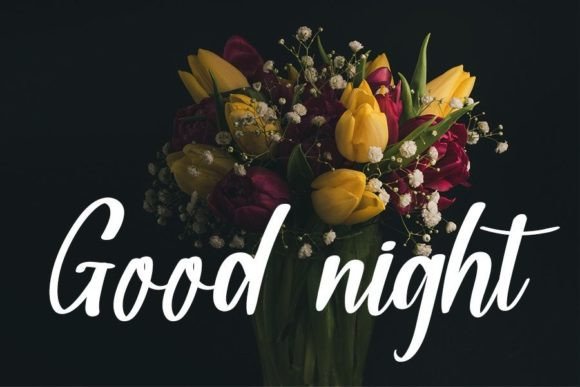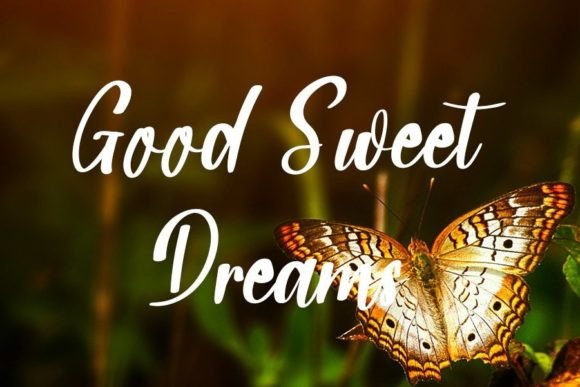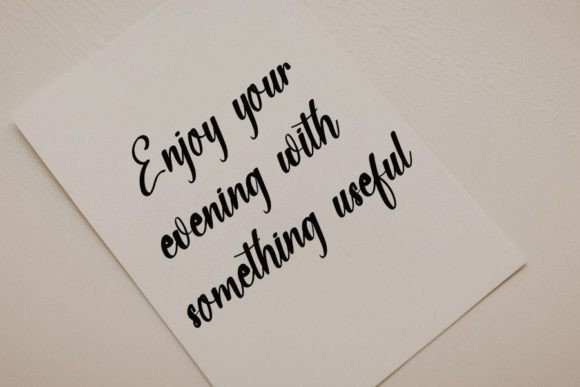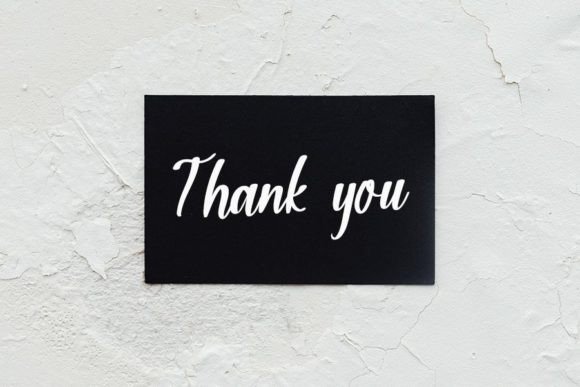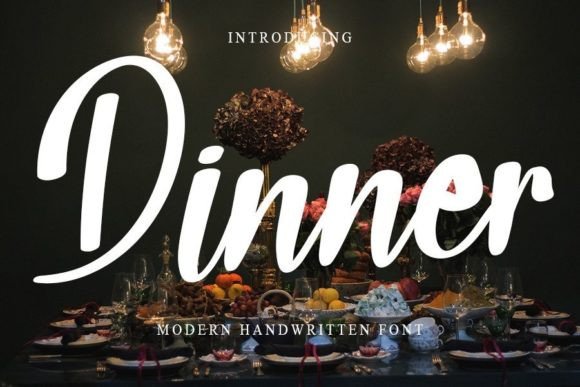
Dinner Font: Elevate Your Designs with Elegance and Timeless Style
Are you on the hunt for a font that exudes elegance, sophistication, and a touch of whimsy? Look no further than the Dinner Font, a stunning handwritten font that is sure to capture your heart. With its incredibly distinct and timeless style, this beautiful font is perfect for designers, crafters, and anyone looking to add a touch of luxury to their projects.
What Makes Dinner Font So Special?
Dinner Font is a neat and beautiful handwritten font that boasts an elegant touch, making it perfect for a wide range of applications. Whether you’re working on a branding project, creating wedding invitations, or designing social media graphics, this font is sure to impress. Its unique and distinctive style sets it apart from other fonts, making it a standout choice for anyone looking to create spectacular designs.
Key Features of Dinner Font
- Elegant and Sophisticated: Dinner Font features an elegant and sophisticated design that is perfect for high-end projects.
- Handwritten Style: The font’s handwritten style gives it a personal and unique touch that is sure to capture attention.
- Timeless Appeal: The font’s classic design ensures that it will remain timeless and relevant for years to come.
- Versatile: Dinner Font is perfect for a wide range of applications, from branding and advertising to wedding invitations and social media graphics.
How to Use Dinner Font in Your Designs
Using Dinner Font in your designs is easy and straightforward. Here are a few tips to get you started:
- Pair it with Other Fonts: Pair Dinner Font with other fonts to create a unique and visually appealing design.
- Use it for Headings: Use Dinner Font for headings and titles to add a touch of elegance and sophistication to your design.
- Try it on Different Backgrounds: Try Dinner Font on different backgrounds to see how it looks and find the perfect combination.
Why Designers and Crafters Love Dinner Font
Dinner Font has quickly become a favorite among designers and crafters, and for good reason. Here are a few reasons why:
- Unique Style: The font’s unique and distinctive style sets it apart from other fonts and makes it a standout choice.
- Ease of Use: Dinner Font is easy to use and can be easily integrated into a wide range of design applications.
- High-Quality Design: The font is designed to high standards, ensuring that it looks great in any design.
- Support for Multiple Languages: Dinner Font supports multiple languages, making it a great choice for designers and crafters who work with international clients.
In conclusion, Dinner Font is a stunning handwritten font that is perfect for designers, crafters, and anyone looking to add a touch of elegance and sophistication to their projects. With its incredibly distinct and timeless style, this beautiful font is sure to capture your heart and elevate your designs to the next level. So why wait? Fall in love with Dinner Font today and start creating spectacular designs!
- Dinner Font is a neat and beautiful handwritten font with an elegant touch.
- The font features an incredibly distinct and timeless style.
- Dinner Font is perfect for a wide range of applications, from branding and advertising to wedding invitations and social media graphics.
- The font is easy to use and can be easily integrated into a wide range of design applications.